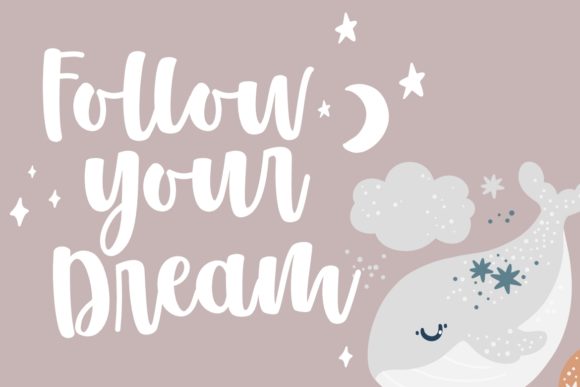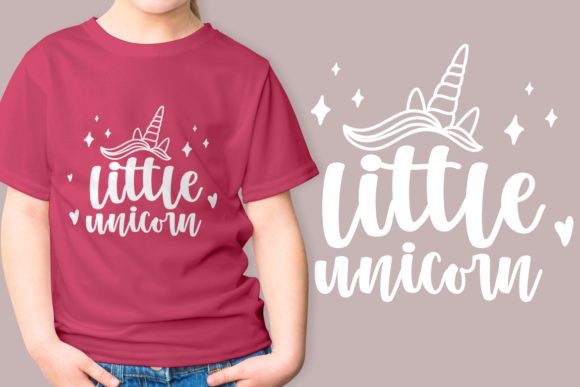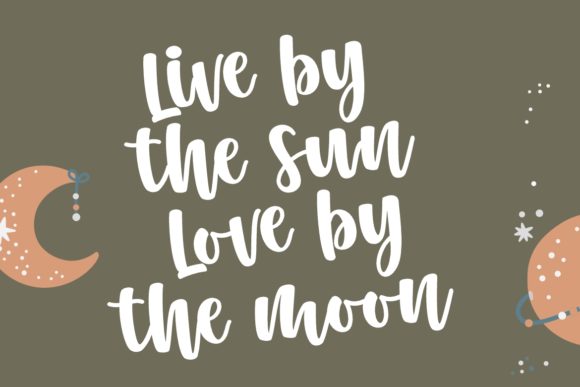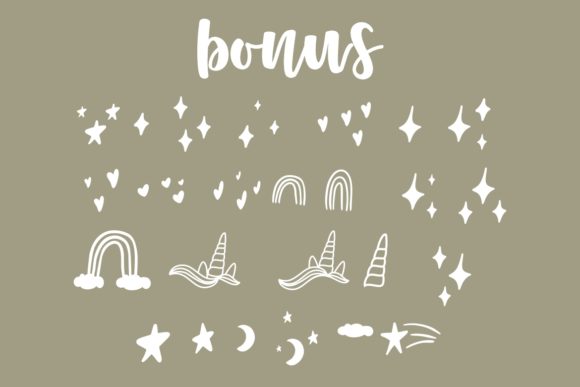
Introduction to Love Sparks Font
As you sit at your desk, surrounded by scraps of paper, glue, and colorful markers, you’re hit with the perfect idea for your next creative project. The words flow effortlessly, and you can almost see it all come together – the perfect wedding invitation, a heartfelt thank you card, or a stunning logo that captures the essence of your brand. And then, you need the perfect font to bring it all to life.
Enter the Love Sparks Font – a beautiful, relaxed, and warm-hearted paint brushed script font that adds a personal touch to any design. With its high-quality strokes and transparent background, this free download is a valuable resource for designers looking to add a unique flair to their work. Whether you’re working on a wedding design, a greeting card, or a logo, the Love Sparks Font is sure to spark inspiration and leave a lasting impression.
As a designer, you know that the right font can make all the difference in a project. That’s why we’re excited to introduce you to the Love Sparks Font – a game-changing design resource that’s sure to become your new go-to for all your creative needs.
Key Features of Love Sparks Font
- High-quality, professional design perfect for creative projects and personal use.
- Unique, hand-drawn design elements with a transparent background for easy customization.
- Comprehensive font family with multiple styles and weights, ideal for creative projects and design resources.
Honest Review: Love Sparks Font
I recently came across the Love Sparks Font and was excited to give it a try. The first thing that caught my eye was the beautiful, hand-drawn design. The font is perfect for a creative project that needs a touch of romance and whimsy.
- The high quality of the font is evident in its smooth lines and precise details.
- The font comes with a transparent background, giving you flexibility when designing.
- The Love Sparks Font is a great design resource for anyone working on a creative project that requires a unique and eye-catching font.
- The font may not be suitable for formal or professional projects, as it has a more playful and casual tone.
- The font family is relatively small, with only a few weights and styles available.
Overall, I was impressed with the Love Sparks Font and would recommend it to anyone looking for a high-quality, free font for a creative project. While it may have some limitations, its unique design and versatility make it a great addition to any designer’s toolkit.
The Love Sparks Font is ideal for creative projects such as wedding invitations, birthday cards, and social media graphics. Its unique design and high-quality feel make it a popular choice among designers.
Alternatives to Love Sparks Font
Romance Script Font
Romance Script Font is a high-quality, elegant script font perfect for creative projects that require a touch of sophistication. It features a transparent background and is ideal for use in wedding invitations, greeting cards, and other romantic designs. When to use: For elegant, high-end designs that require a sense of luxury. Comparison to Love Sparks Font: Romance Script Font is more formal and elegant than Love Sparks Font, making it suitable for more formal occasions.
Great Vibes Font is a beautiful, high-quality script font that is perfect for creative projects that require a fun and playful touch. It features a transparent background and is ideal for use in social media graphics, advertisements, and other designs that require a sense of energy and excitement. When to use: For fun, creative projects that require a sense of playfulness. Comparison to Love Sparks Font: Great Vibes Font is more casual and playful than Love Sparks Font, making it suitable for more casual designs.